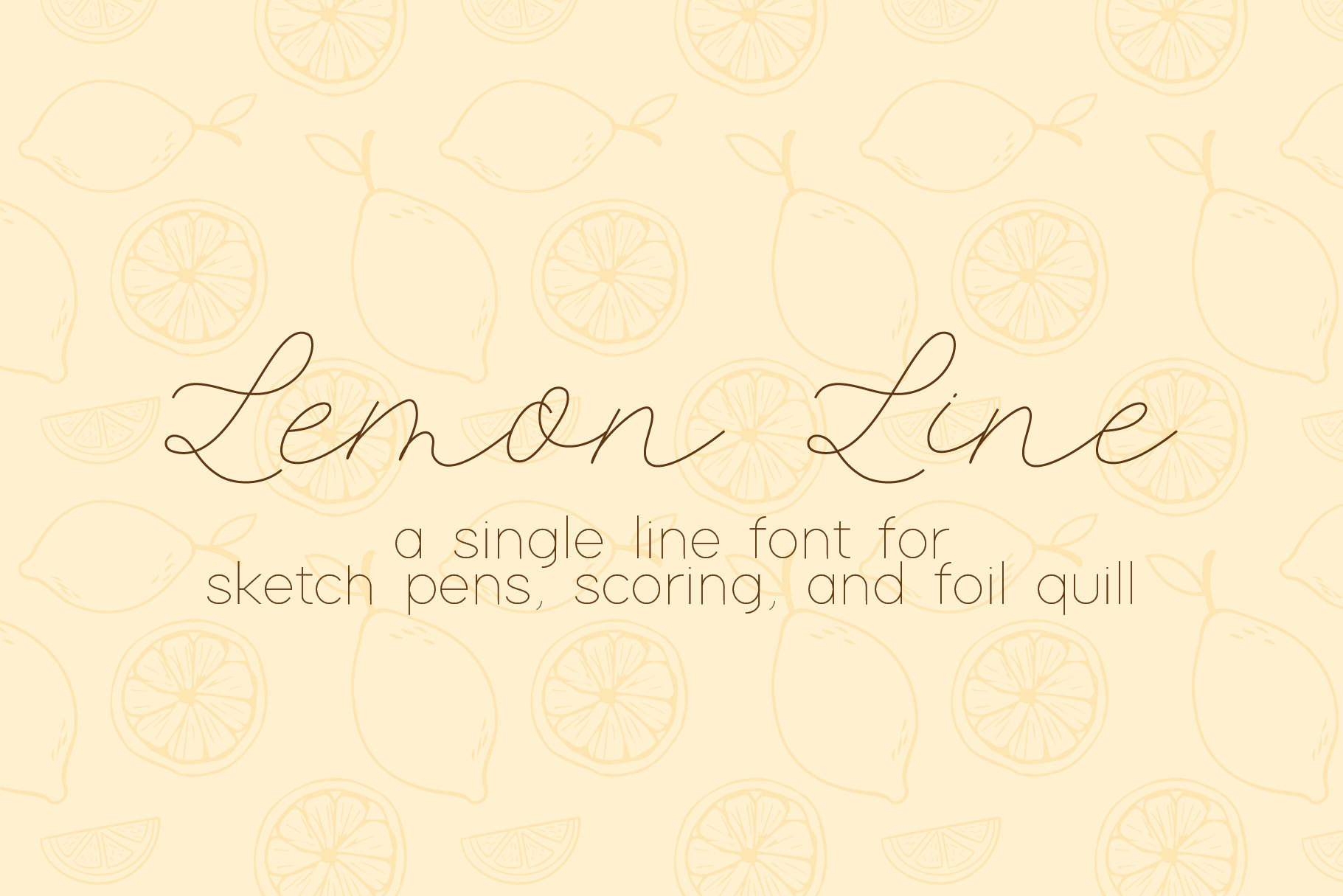
Lemon Line Single Line Font
Lemon Line is a modern calligraphy single line font that's fresh, bouncy and fun! This font is perfect for scoring, foil quill, and sketch pen projects. Please make sure you understand how to use a Single Line Font before purchasing - we also have this font available as a standard fill font in our shop (look for Lemon Squeezy!). Here's a video on how to use this Single Line Font: https://www.youtube.com/watch?v=uRefWy53Qm8
With 516 total characters, and tons of stylistic alternates - you'll be able to create that perfectly imperfect calligraphy style of your dreams! This font includes language support for almost all languages using the Roman Alphabet.
Lemon Squeezy contains over 500 unique, coded features for a realistic, handwritten look: standard ligatures, full Roman Alphabet language support (full list below), stylistic alternates, 1-10 Roman Numerals, special ending forms on certain letters, and alternate bowls on ascenders and descenders.